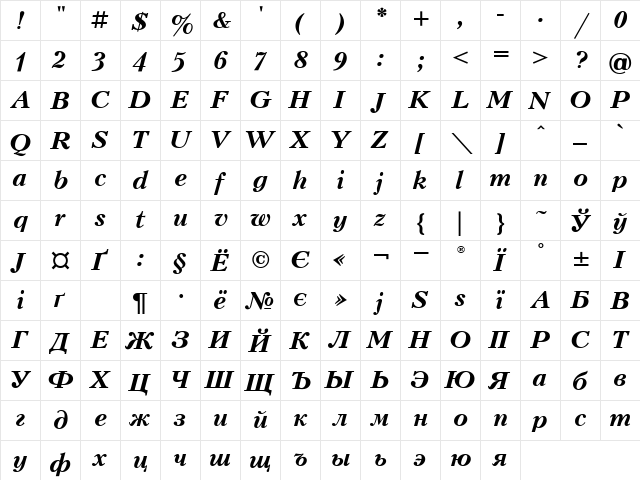
UkrainianKudriashov BoldItalic
Design Context for UkrainianKudriashov Typeface
UkrainianKudriashov offers clean, dependable letterforms without strong stylistic allegiance, making it a practical choice for designers who need flexibility. The slanted form adds forward momentum and visual energy. Its bold stroke weight gives it real presence on the page.